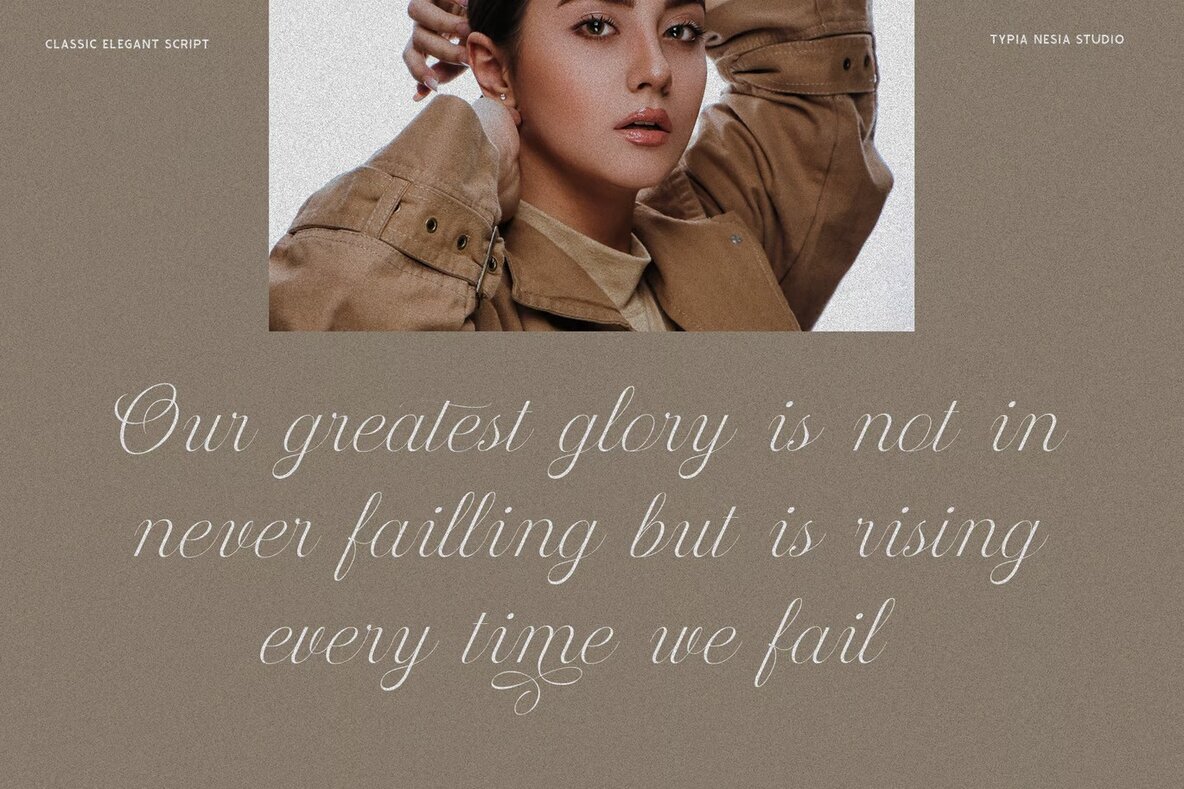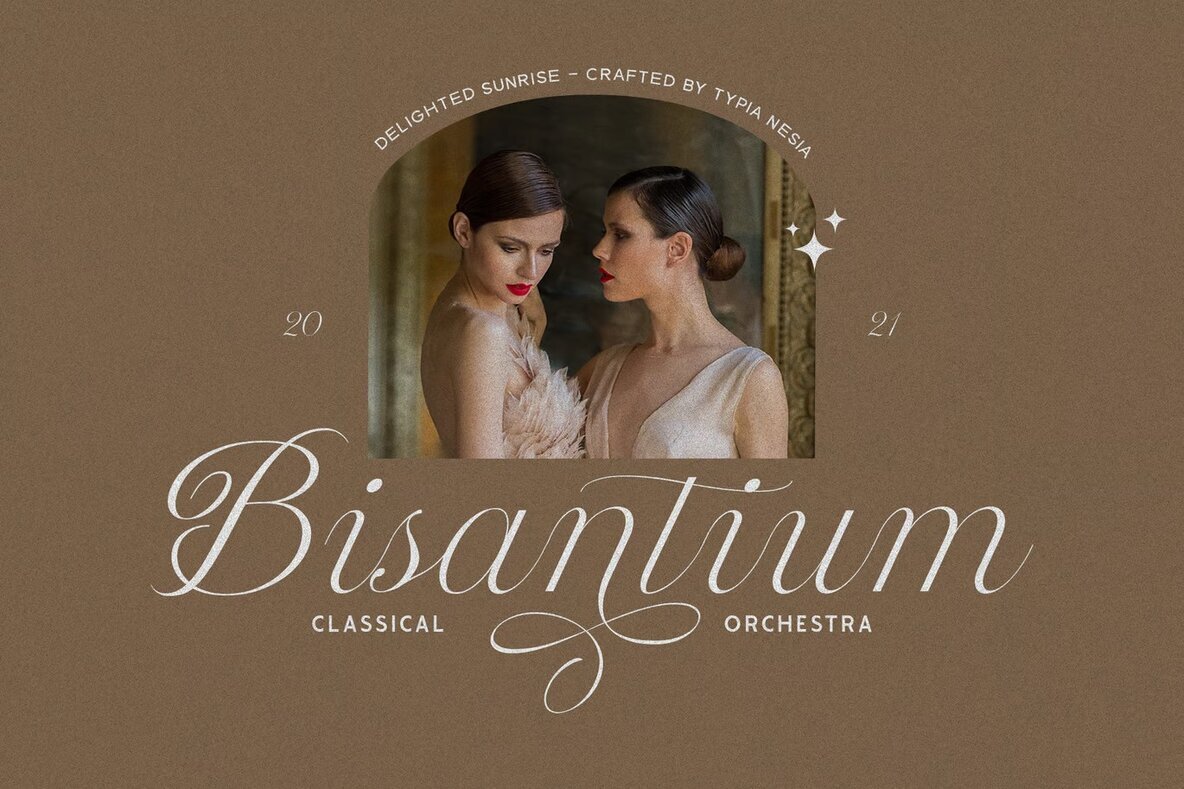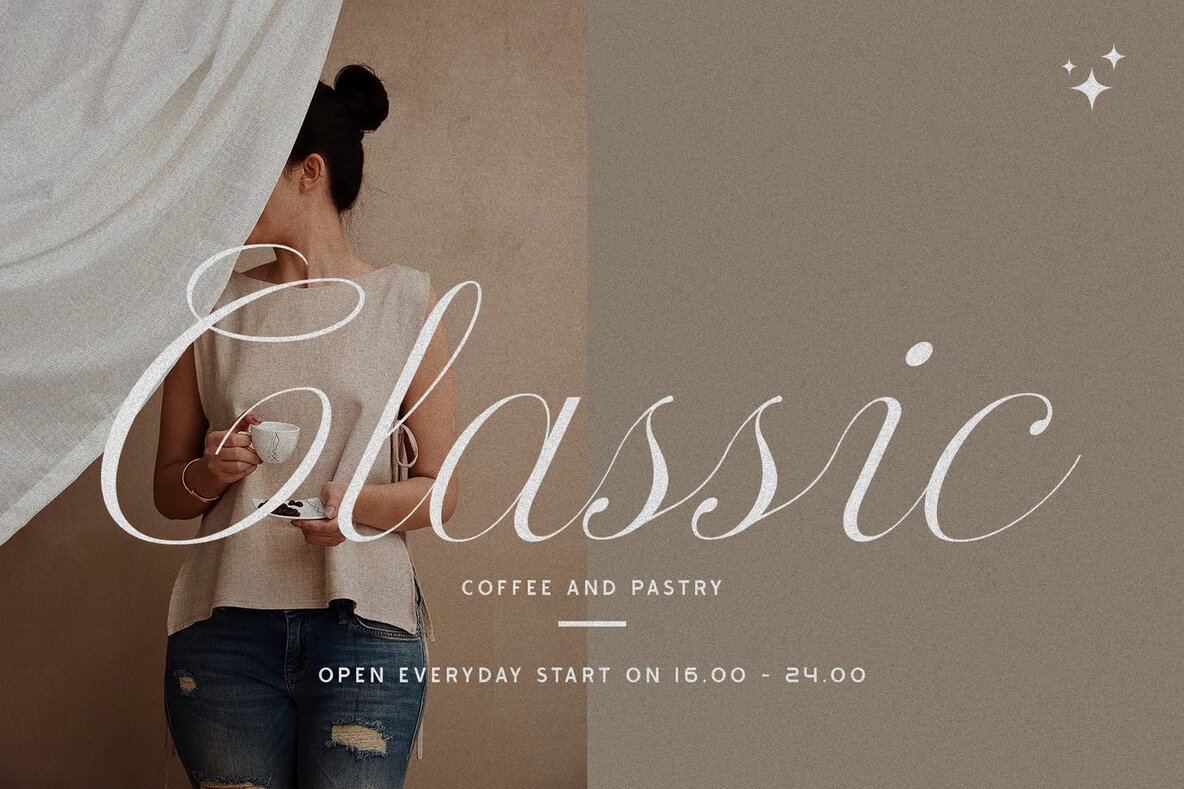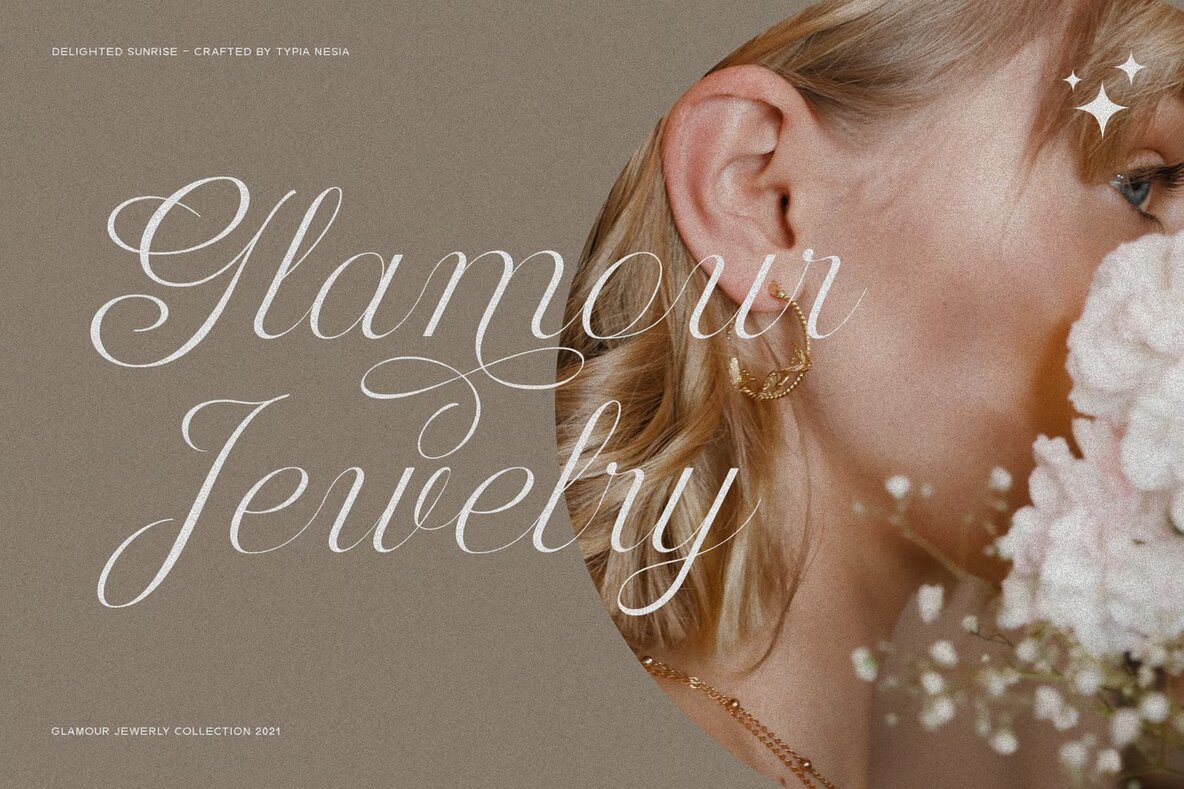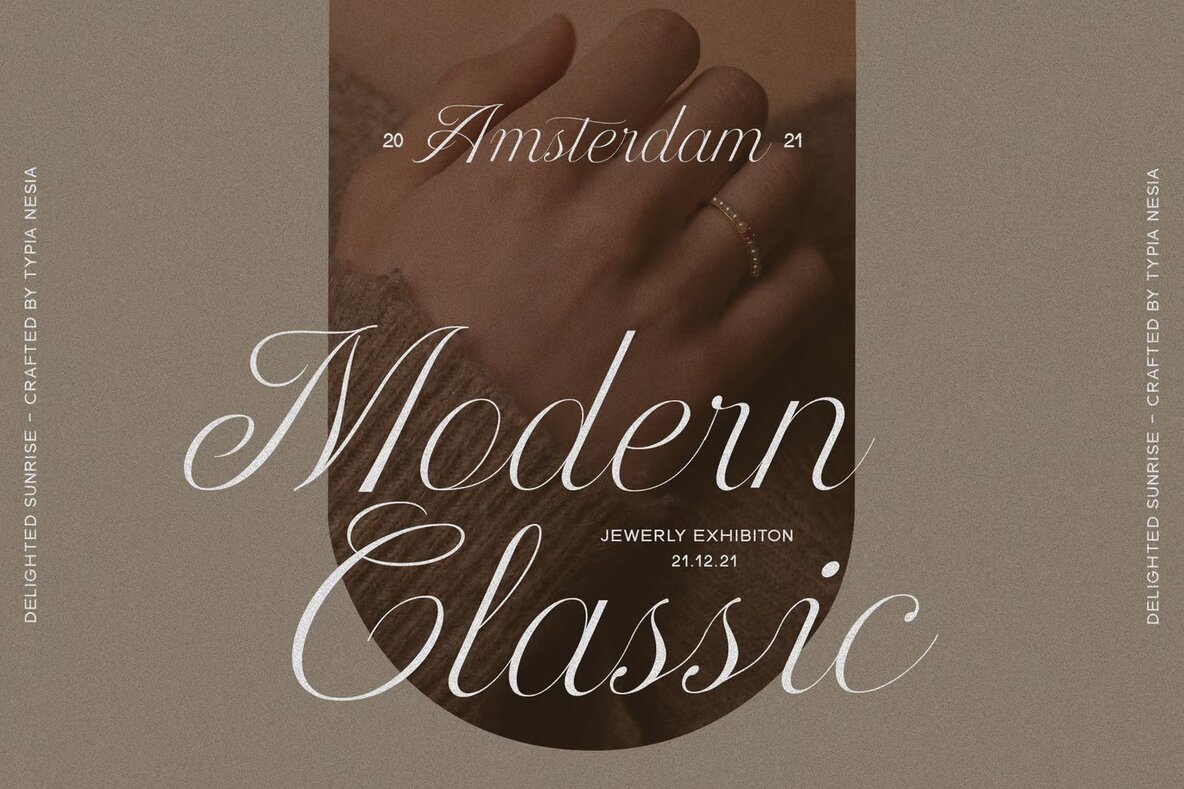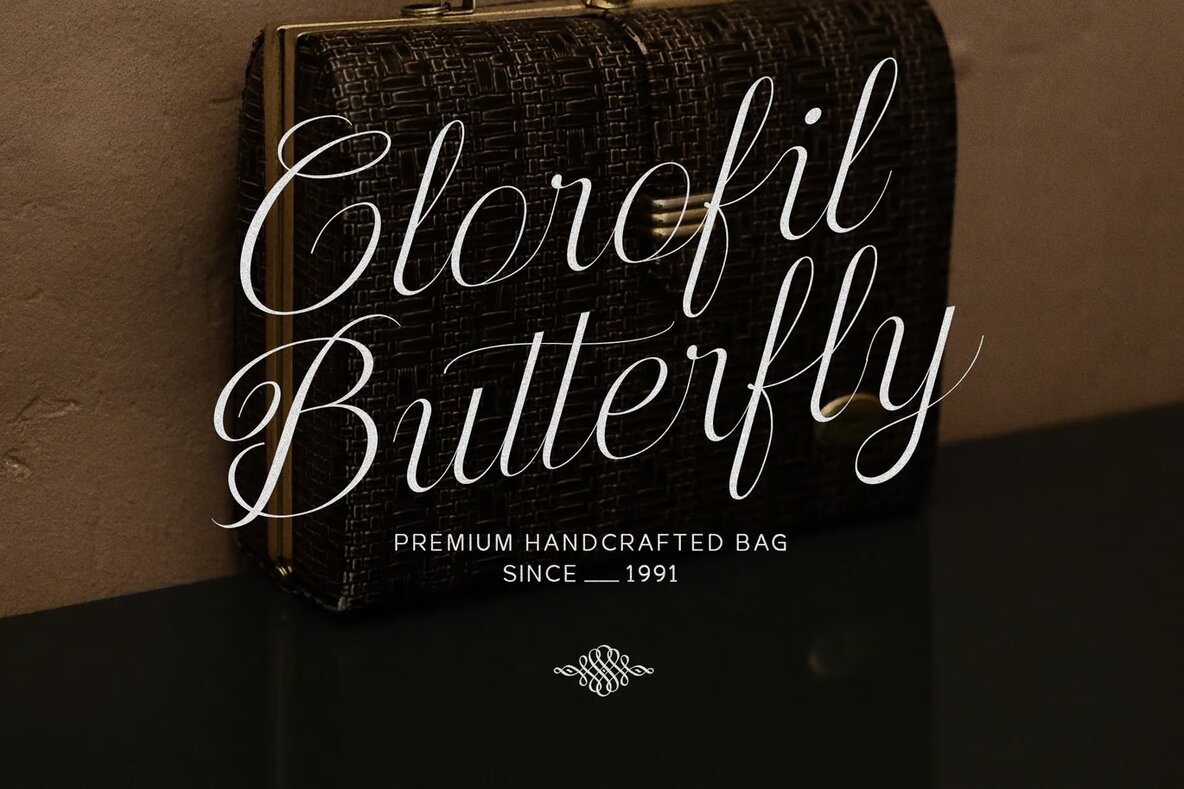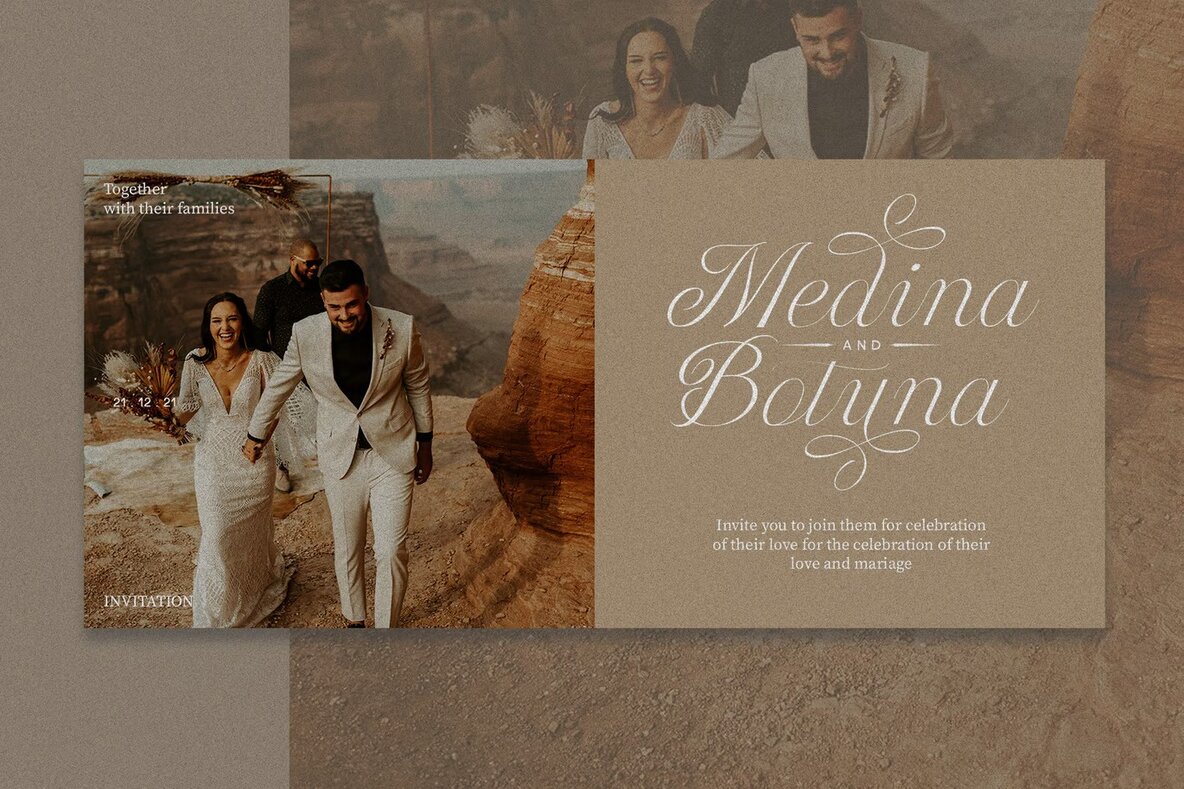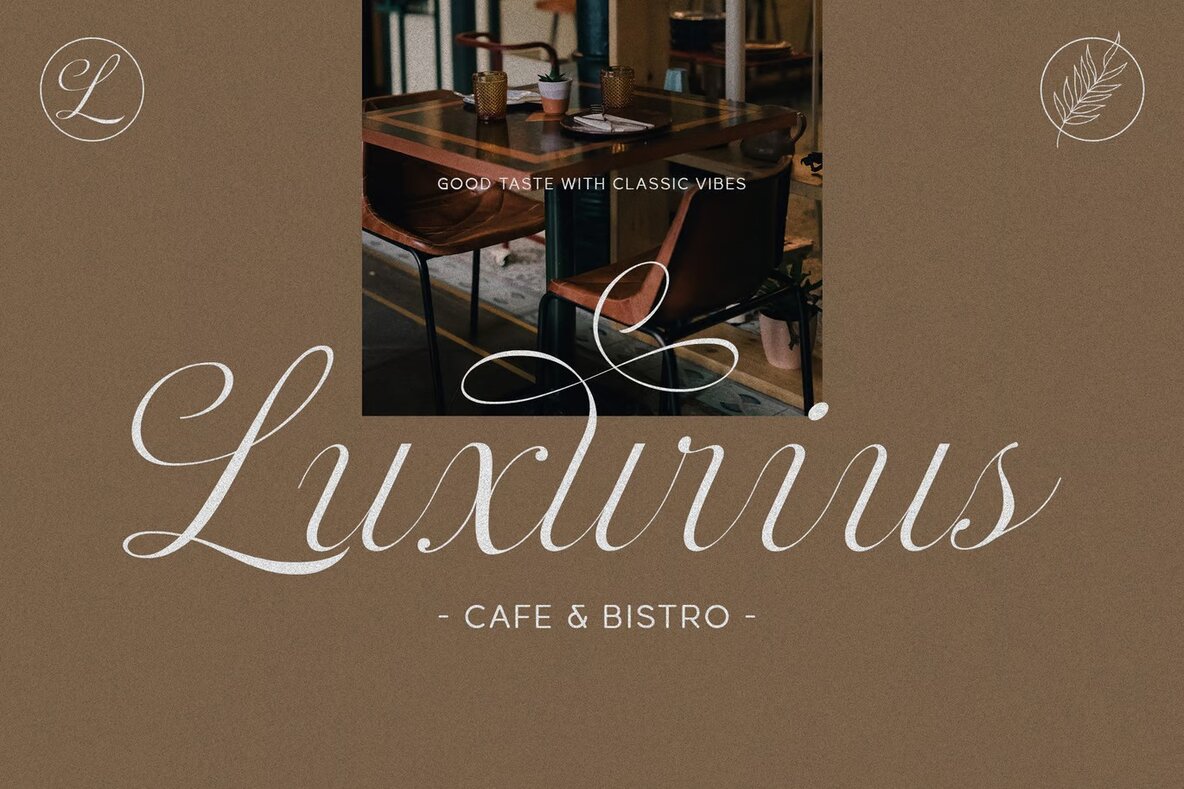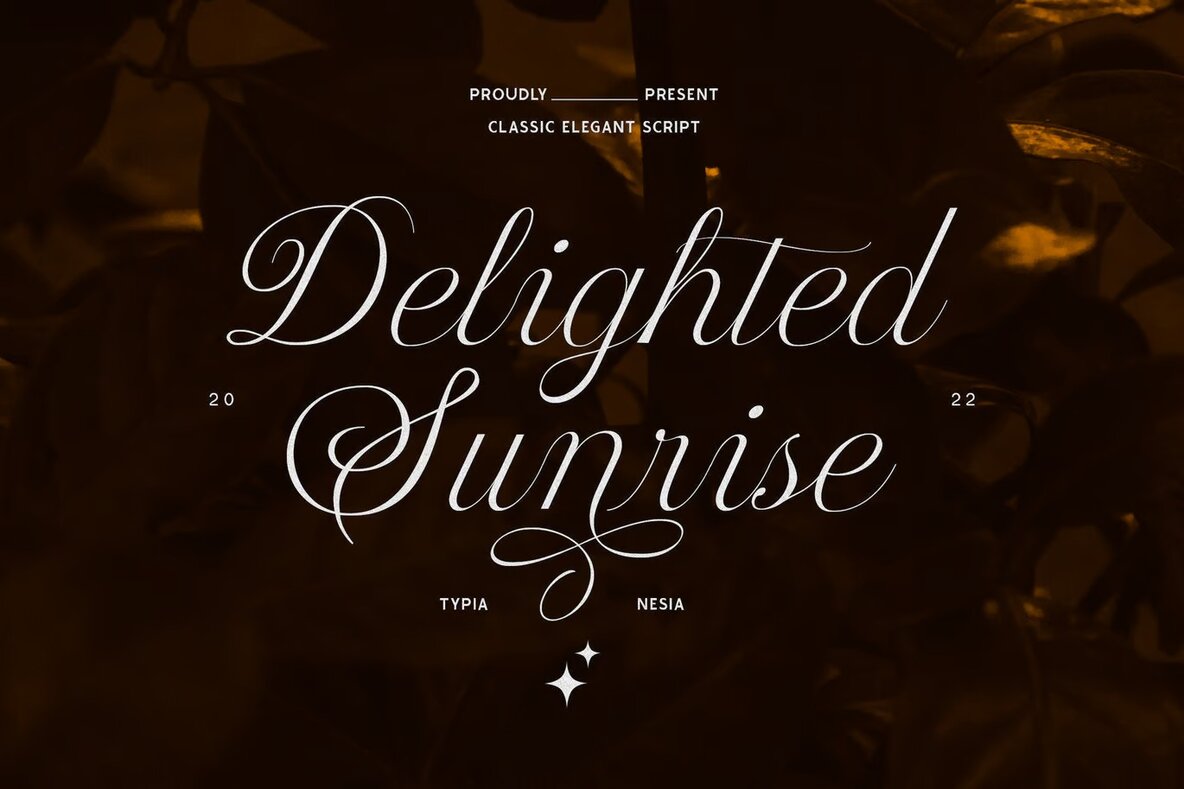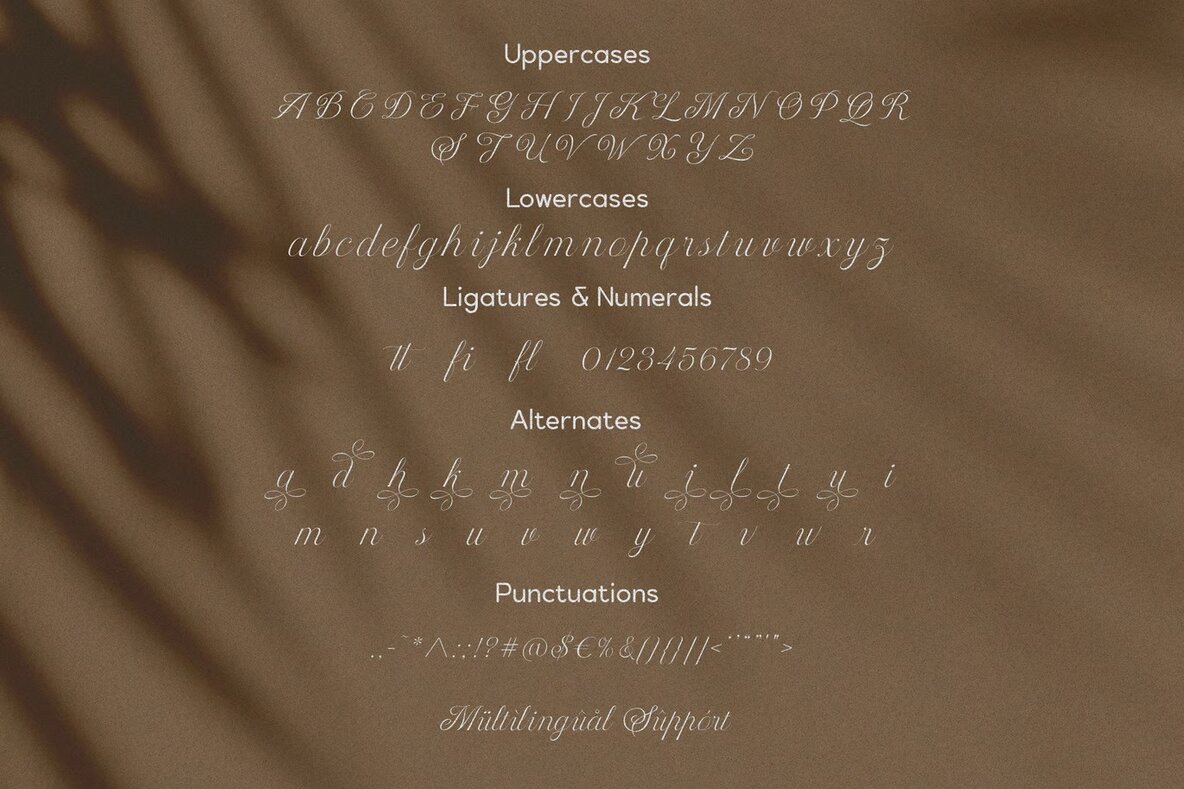
Delighted Sunrise Font
Delighted Sunrise Regular
Delighted Sunrise captures the timeless beauty of vintage classic calligraphy with a touch of elegance. This Copperplate script font is perfect for adding a regal flair to your projects. Its graceful flow makes it an ideal choice for wedding designs, where sophistication and elegance are paramount. Its versatility also lends itself beautifully to blogging, where a touch of classic charm can make your content stand out. Enhance your social media presence with this elegant script, adding an air of refinement to your posts.
This font can work wonders for restaurant branding, giving menus and signage a unique, classy feel. Its classic style is well-suited for crafting exquisite invitation cards, ensuring they leave a lasting impression on recipients. Whether used for royal branding or personal creative endeavors, Delighted Sunrise brings a distinguished, elegant touch to any design project, effortlessly conveying luxury and style.